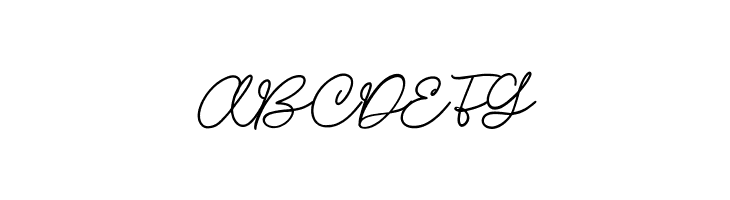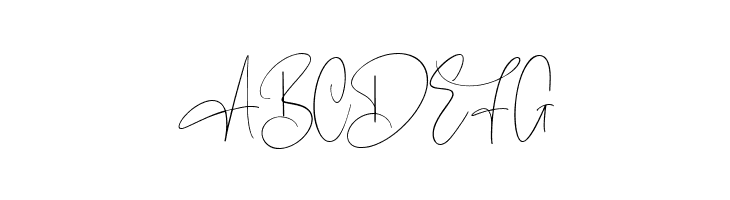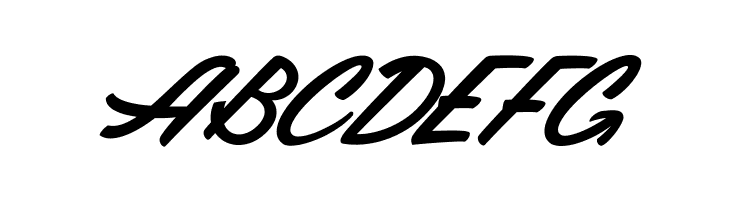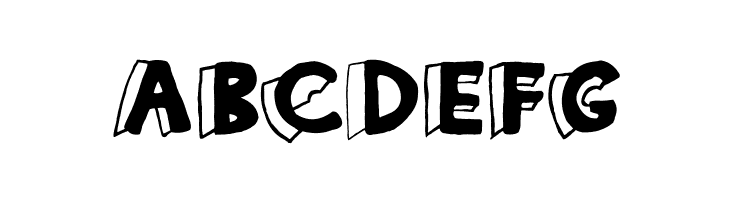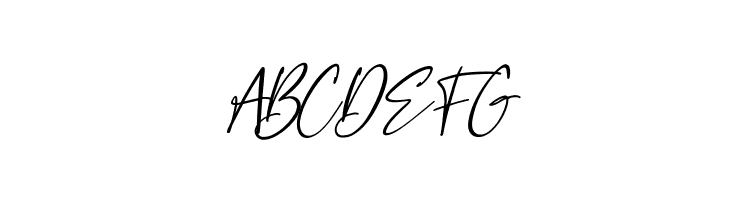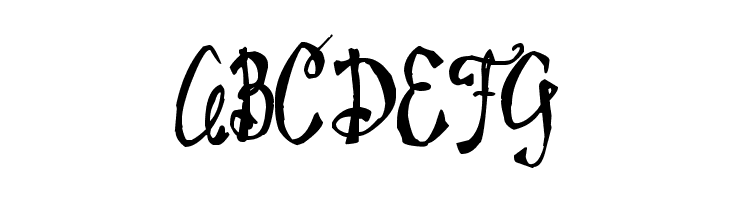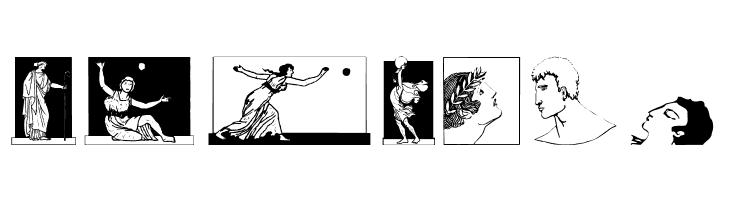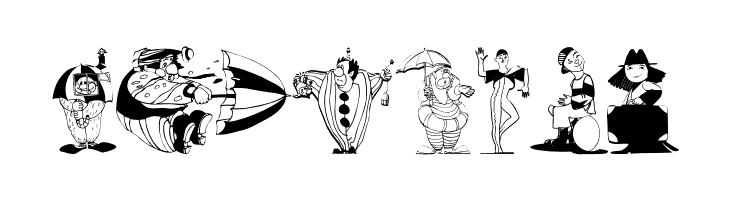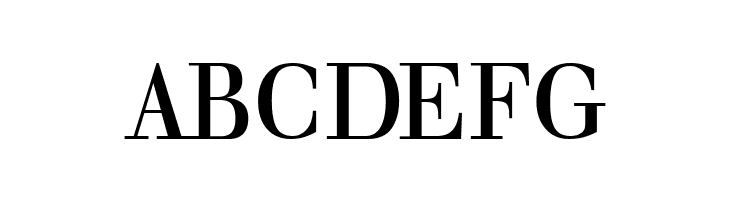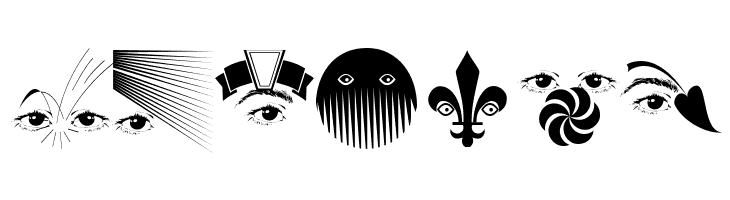
• Cityskypes Free Regular
( Fonts by Maulana Creative )
Elegant cursive script font.
• Civilization
( 11th Floor - formerly www.xs4all.nl/~buro )
A futuristic and geometric font with sharp angles and rounded edges.
• Clairdelune Free Font Regular
An elegant and flowing script font with intricate, high-contrast letterforms.
• Clarity free
( Fadhil Aqsa - creativemarket.com/Meutuwah )
An elegant script font with fluid, cursive strokes and refined contrast.
• ClassicaCaps
A bold, decorative font with uppercase letters in framed squares.
• ClassiCapsC
A bold, circular font with high contrast and modern style.
• Classico_PersonalUseOnly
A dynamic and flowing script font with elegant, cursive letterforms.
• ClassicoAntiqua
Illustrative dingbat font with classical antiquity themes.
• ClassicRomanCaps
A classic, elegant font with intricate serifs and a Roman inscription style.
• ClassizismAntiquaBook
A classic serif font with elegant lines and medium contrast, perfect for traditional and versatile uses.
• Classy Brune Italic Free Regular
An elegant italic font with a modern, fluid style.
• Classy Brune Reg Free Regular
A sophisticated and elegant font with modern and classic elements, featuring tall, slender forms and sharp serifs.
• Classyloop Free Regular
A graceful, cursive font with interconnected letters and a handwritten feel.
• ClaudetteaimeleChocolat
( Fonts by Maelle.K - Thomas Boucherie )
A dynamic, expressive script font with fluid, cursive strokes and elegant flourishes.
• Claudia Jean
A whimsical, bold handwritten font with a playful and dynamic style.
• Claudio Wings Free Regular
( Fonts by Maulana Creative )
A dynamic, expressive handwritten font with fluid strokes and a lively character.
• Clausewitz-Fraktur
A decorative Blackletter font with intricate, medieval-style letterforms.
• Clickuper
( Clickuper is a free multilingual display typeface with sharp look. )
A bold, geometric font with sharp angles and a strong presence.